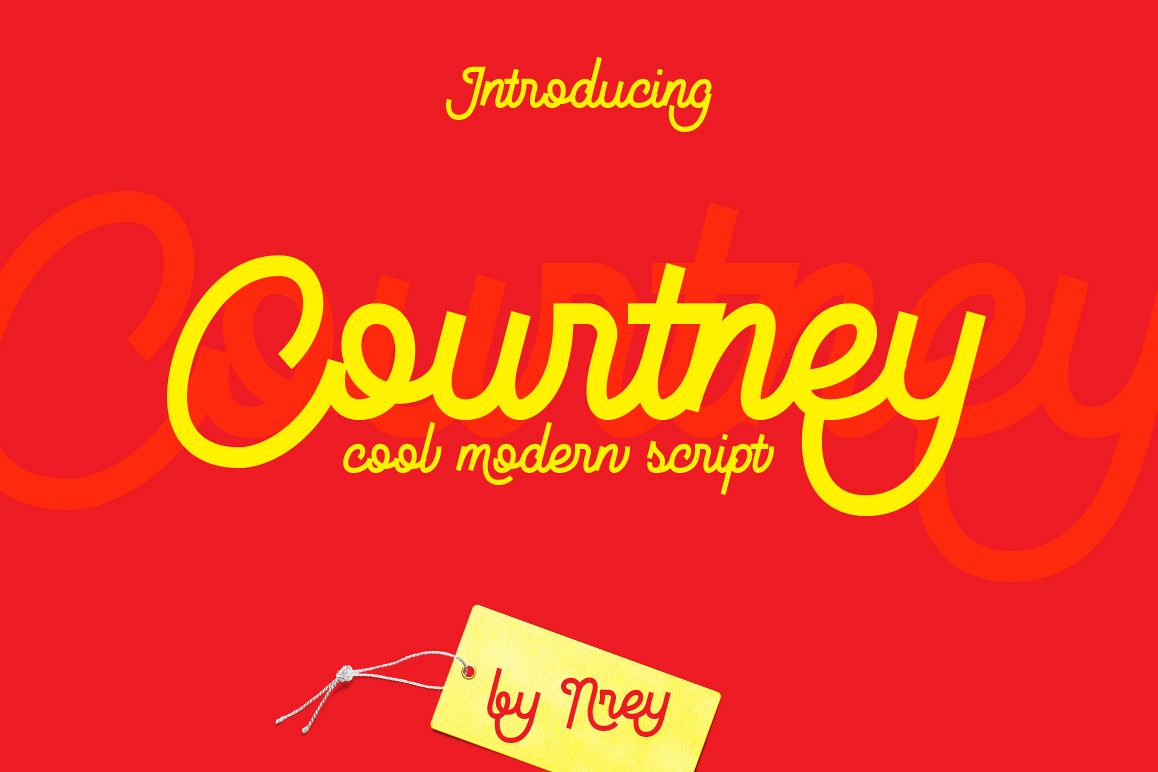
Courtney
Hello! Courtney is a cool and modern script font, monolinear with cut sharp ends.
Can be used for your various design projects such as logotype, poster, digital lettering arts,
clean design, branding design, signs, and more.